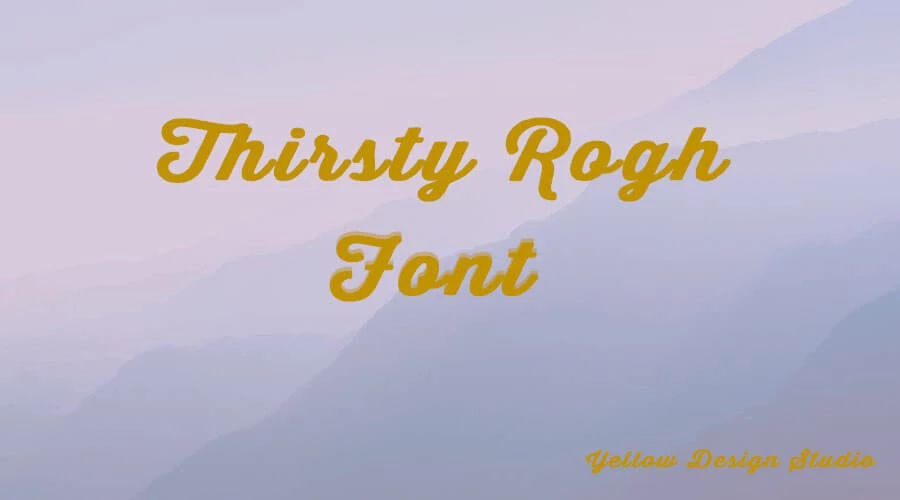
Thirsty Rough Font
Thirsty Rough font is a script typeface font designed by Ryan Martinson and published by Yellow Design Studio in 2012. It’s highly customizable with four alternate versions of every weight ranging from very light to heavy distress. A very generous x-height and the linking of letters with each other provide text set in Thirsty Script with a compact appearance.
The character of Thirsty Script is determined by the dynamic letters of this meticulously designed calligraphic font. The letters with their undemonstrative decorative finials are suggestive of old hand-painted signs and advertising texts of the 1950s and 1960s.
Thirsty Rough Font Usage
Thirsty Rough Font View